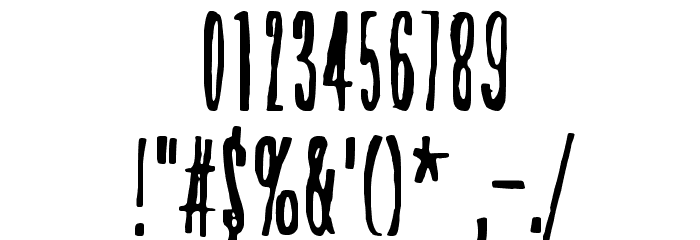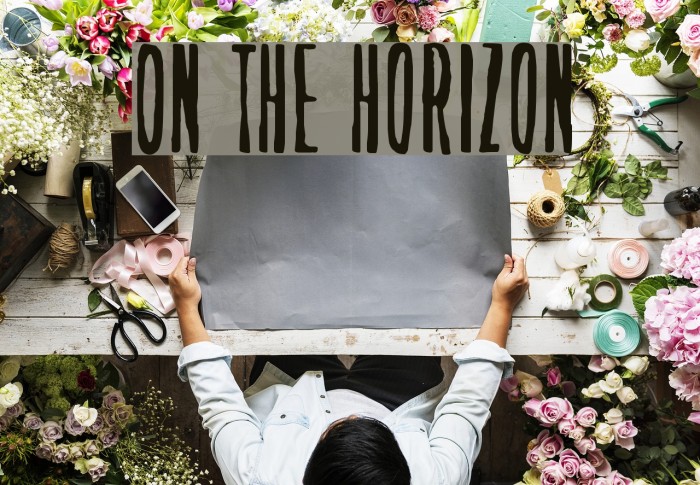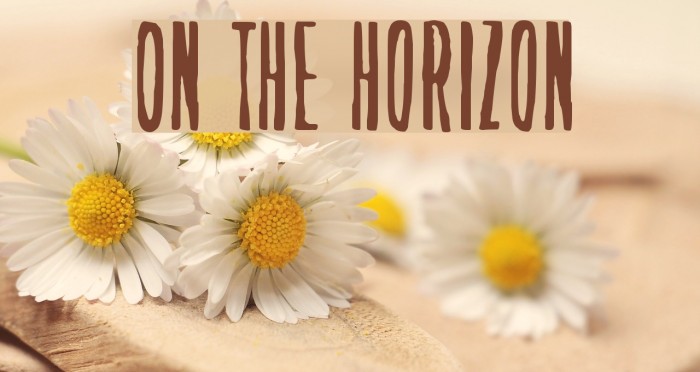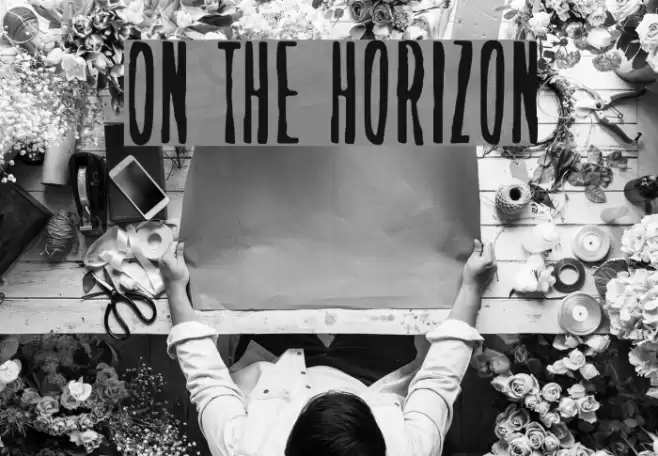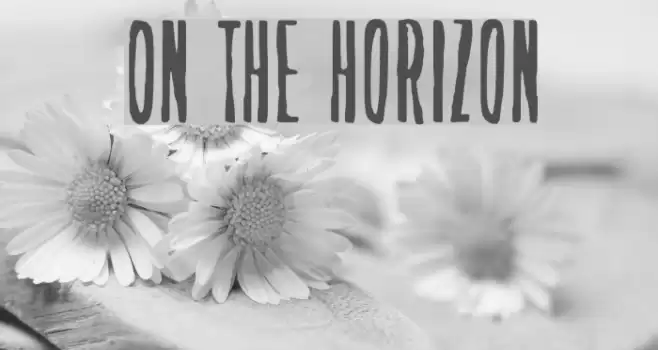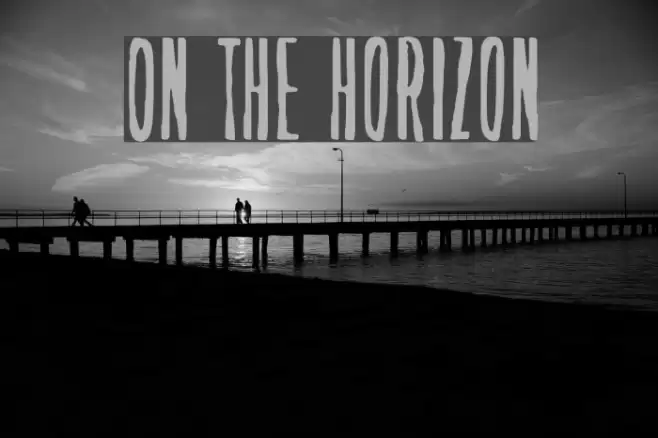
On the horizon Font
This font features a bold and elongated design with a slightly distressed appearance, giving it a hand-drawn, organic feel. The uppercase and lowercase letters maintain a consistent height, contributing to a uniform look across the text. The numbers and special characters follow the same stylistic approach, ensuring cohesion throughout. The strokes are uneven, adding to the rustic charm of the font, making it suitable for projects that require a touch of authenticity and personality.
A bold, elongated font with a distressed, hand-drawn style.
- Proposed Projects: Ideal for posters, branding, packaging, and any design that needs a rustic or vintage touch.
- Overall Style: Vintage